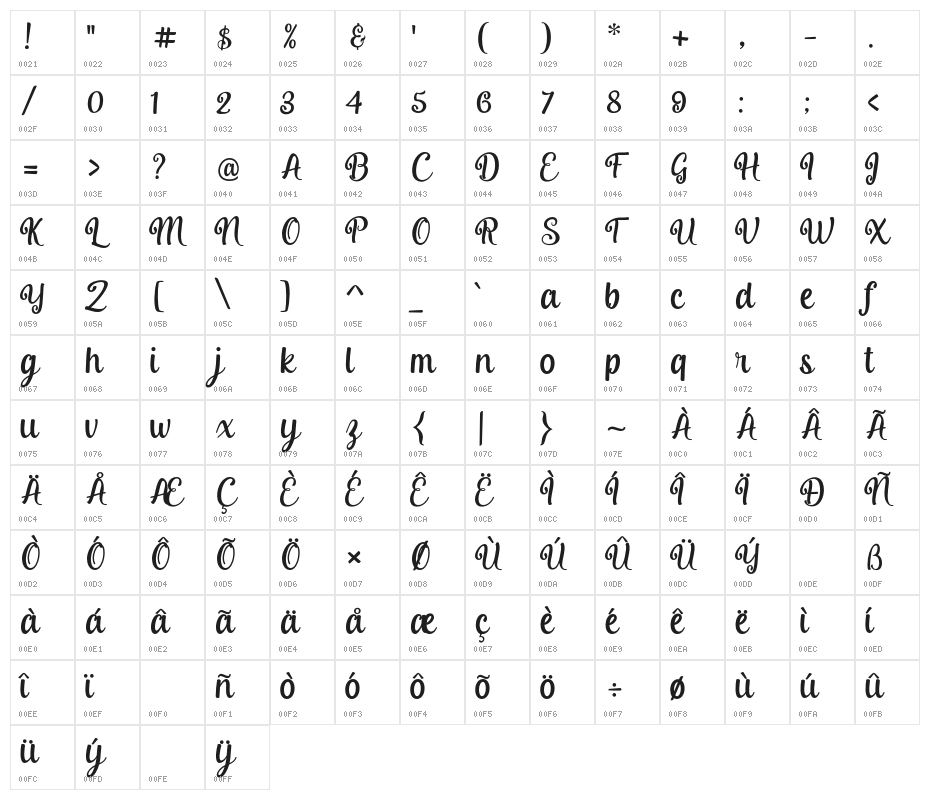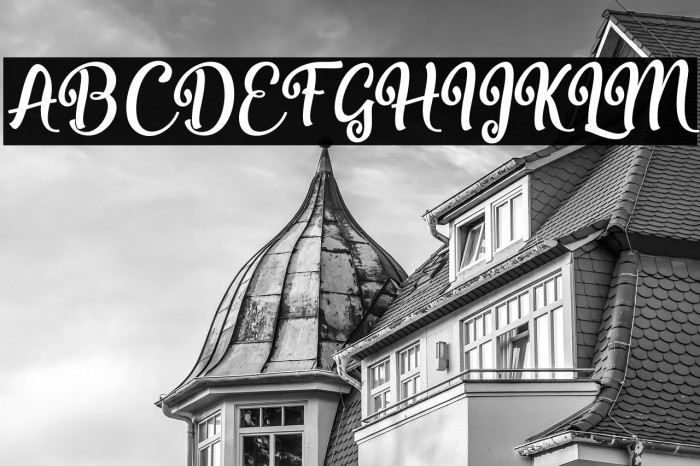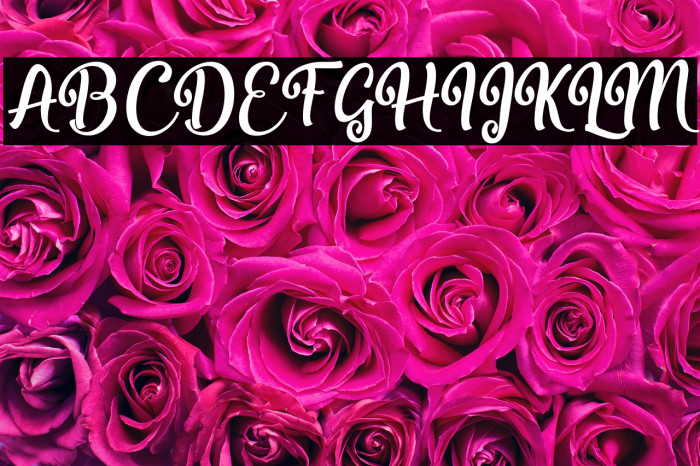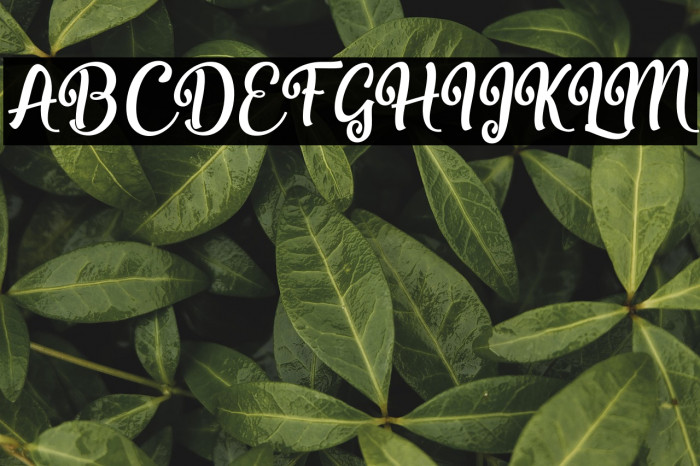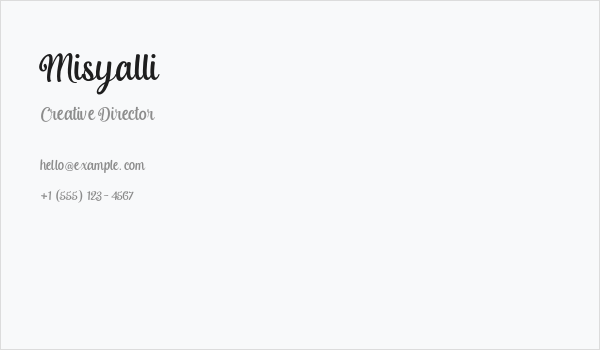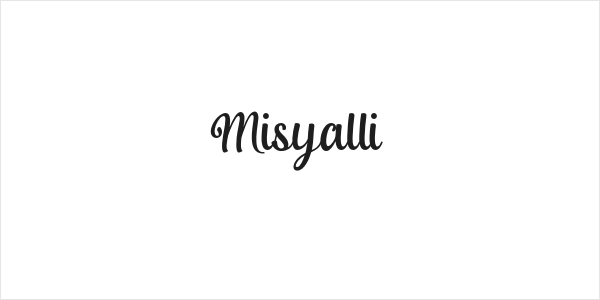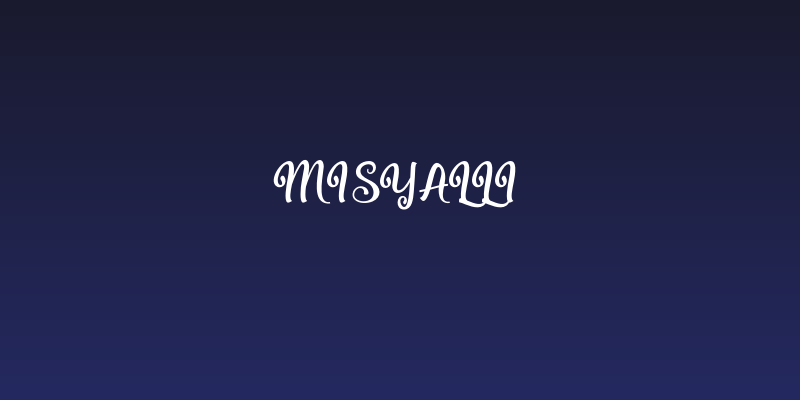
Misyalli Font
Misyalli Description
This font features a playful and elegant script style, characterized by its flowing, cursive letters that convey a sense of movement and grace. The uppercase letters are bold and slightly condensed, with decorative flourishes that add a touch of sophistication. The lowercase letters maintain a consistent flow, with smooth connections between characters, enhancing readability while preserving the artistic flair. Numbers are designed with a similar style, ensuring uniformity across the font. Special characters are included, maintaining the same decorative and cohesive appearance. This font is ideal for projects that require a touch of elegance and creativity.
| Use Case | Logos, Invitations, Decorative Text |